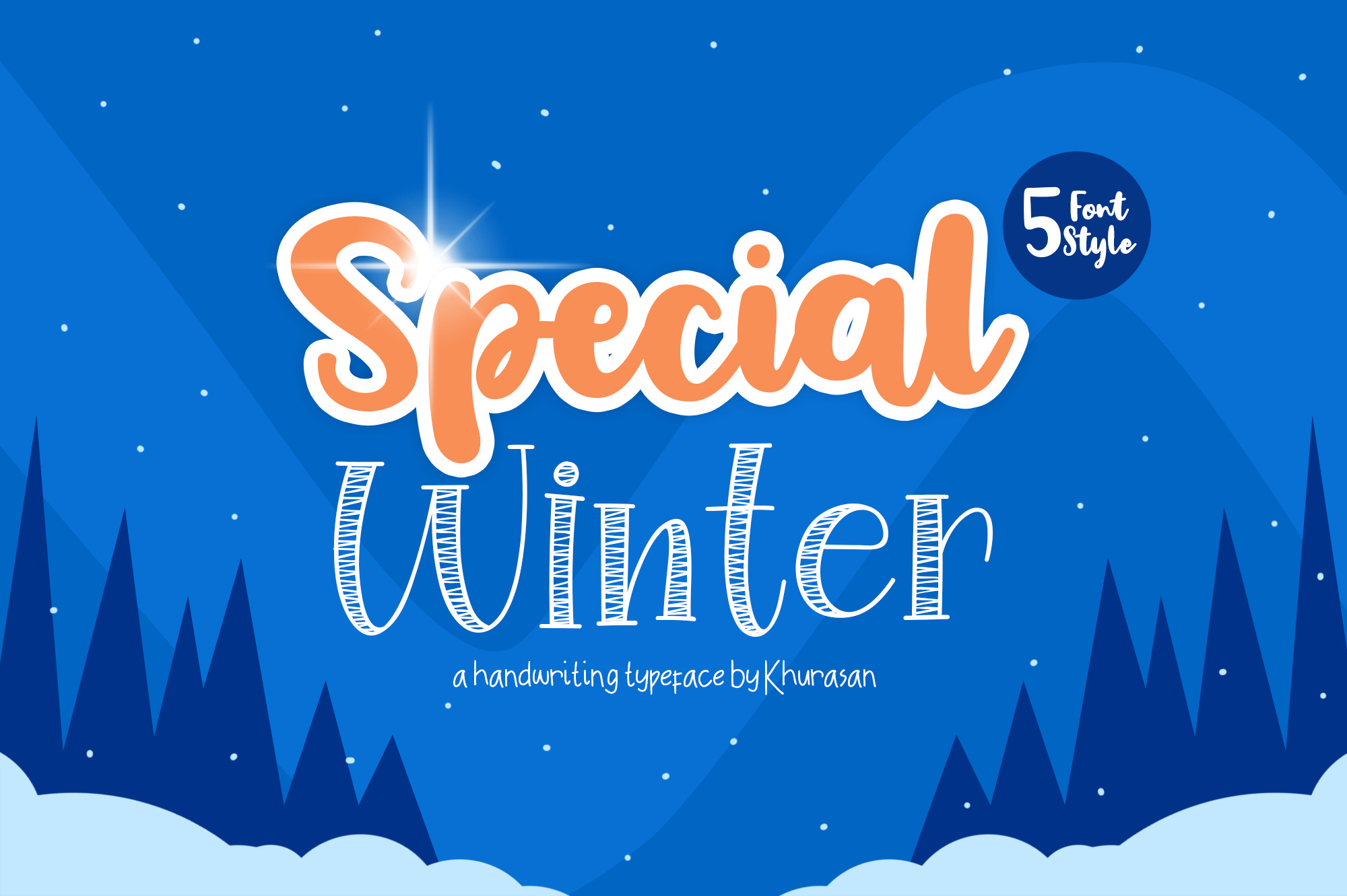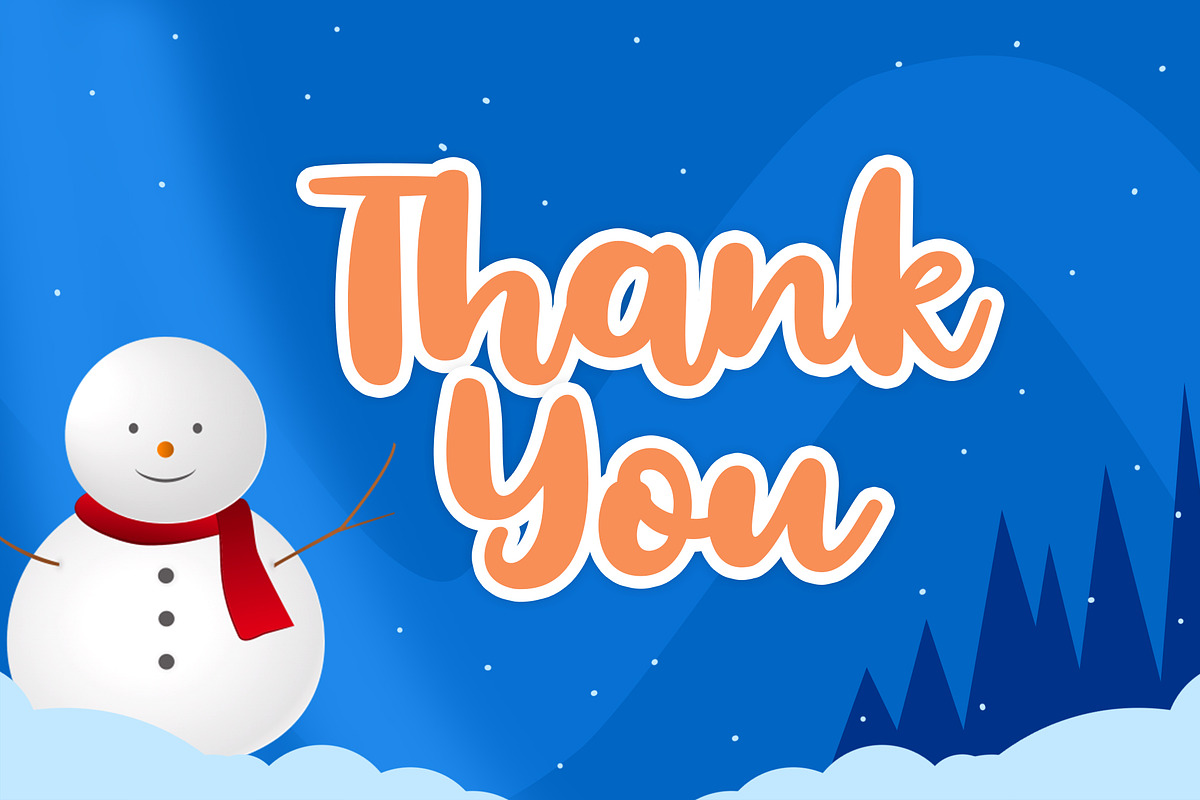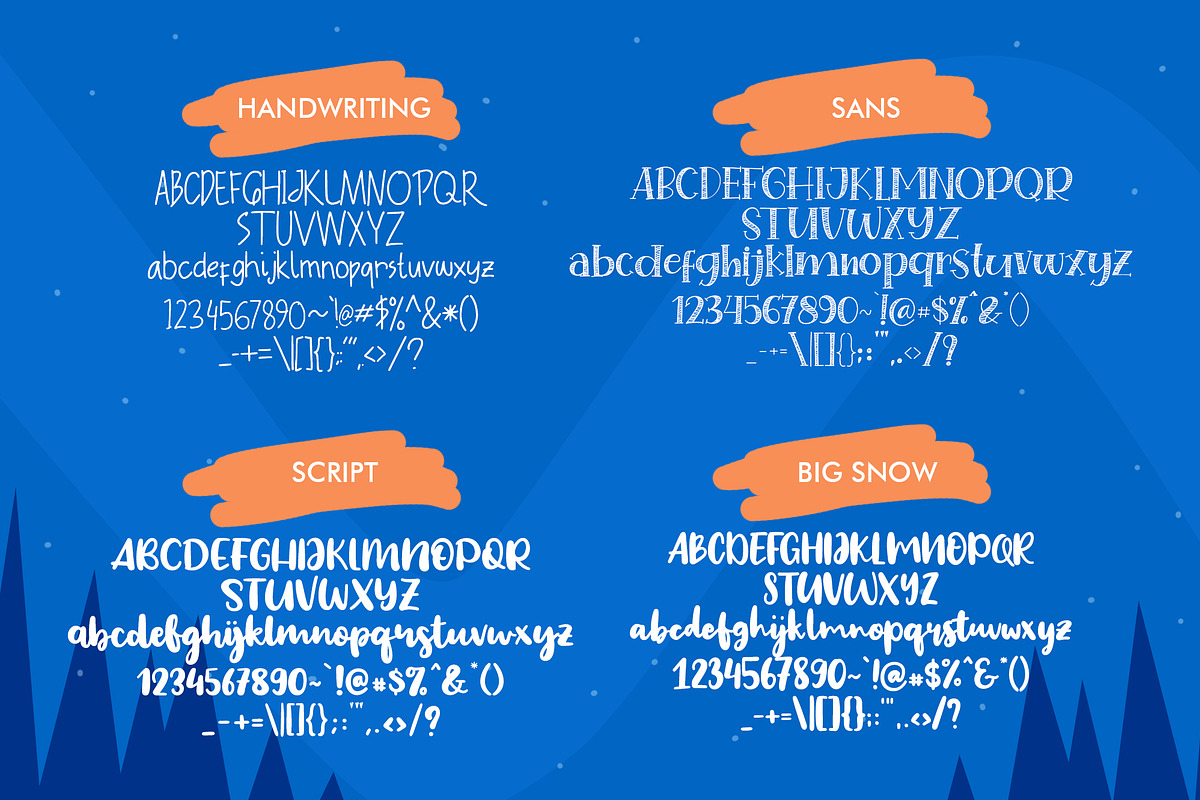
Special Winter 5 Font + Bonus
Introducing the Special Winter 5 Font with four different style, sans, script, handwriting, doodle and bonus Big Snow script font & doodle vector. You can combine to get amazing results. Special Winter it’s perfect for namecard, poster, logo, magazine, cover, banner, tshirt and headers, or even large-scale artwork..